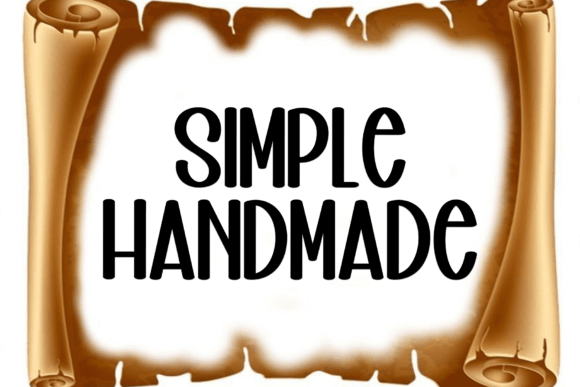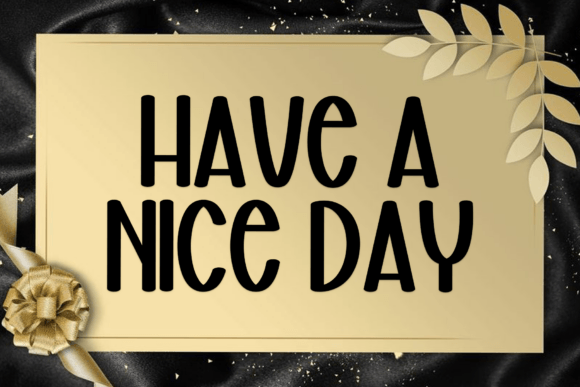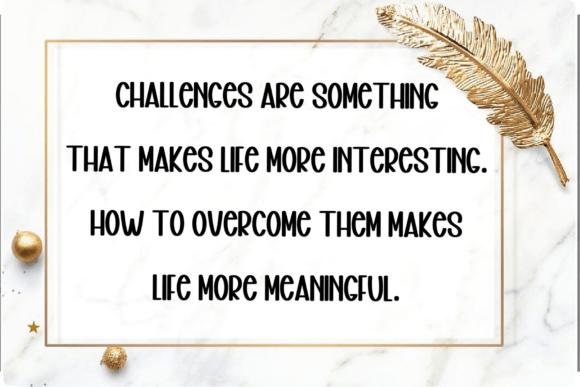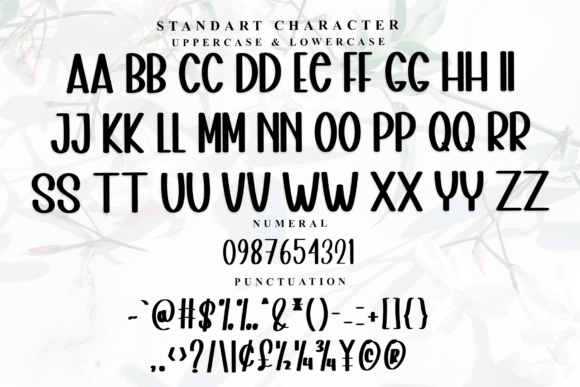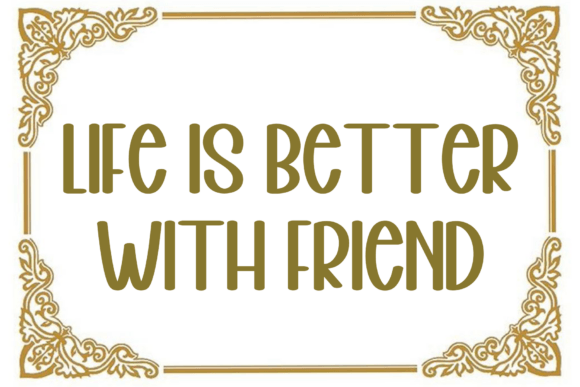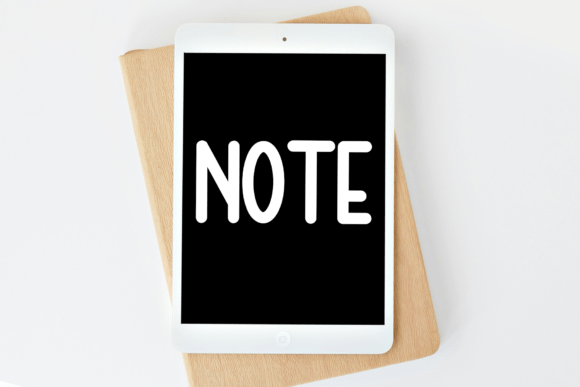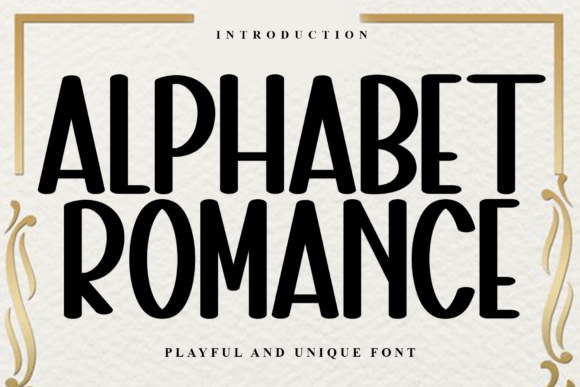
Introducing Alphabet Romance Font: The Perfect Addition to Your Creative Projects
Are you a designer or crafter looking for a font that can add a touch of whimsy and charm to your work? Look no further than Alphabet Romance Font, a fun and playful display font that’s perfect for making your text look lively and full of personality.
What is Alphabet Romance Font?
Alphabet Romance Font is a unique and eye-catching display font that’s designed to bring a smile to your face. Its cute and whimsical style makes it perfect for use in a variety of creative projects, from posters and cards to invitations and crafts.
With its playful and charming design, Alphabet Romance Font is sure to capture the attention of your audience and leave a lasting impression. Whether you’re working on a personal project or a client’s, this font is sure to add a touch of magic to your work.
Key Features of Alphabet Romance Font
So, what makes Alphabet Romance Font so special? Here are just a few of its key features:
- Fun and playful design: Alphabet Romance Font has a unique and eye-catching design that’s sure to stand out from the crowd.
- Cute and whimsical style: This font has a charming and whimsical style that’s perfect for adding a touch of personality to your text.
- Perfect for display text: Alphabet Romance Font is designed specifically for use as display text, making it perfect for posters, cards, and other creative projects.
- Easily readable: Despite its playful design, Alphabet Romance Font is still easily readable, making it perfect for use in a variety of contexts.
Uses for Alphabet Romance Font
So, what can you use Alphabet Romance Font for? The possibilities are endless, but here are a few ideas to get you started:
- Posters and flyers: Add a touch of whimsy and charm to your posters and flyers with Alphabet Romance Font.
- Cards and invitations: Make your cards and invitations stand out with this unique and eye-catching font.
- Crafts and DIY projects: Alphabet Romance Font is perfect for use in a variety of crafts and DIY projects, from scrapbooking to knitting.
- Social media graphics: Add a touch of personality to your social media graphics with Alphabet Romance Font.
Tips for Using Alphabet Romance Font
Here are a few tips for getting the most out of Alphabet Romance Font:
- Use it sparingly: Because Alphabet Romance Font is so eye-catching, it’s best to use it sparingly to avoid overwhelming your audience.
- Pair it with a simple font: For best results, pair Alphabet Romance Font with a simple font to create visual interest.
- Experiment with colors and textures: Don’t be afraid to experiment with different colors and textures to add depth and interest to your text.
Alphabet Romance Font is a fun and playful display font that’s perfect for adding charm and personality to your creative projects. With its cute and whimsical style, this font is sure to capture the attention of your audience and leave a lasting impression. Whether you’re a designer or crafter, Alphabet Romance Font is a great addition to your toolkit.